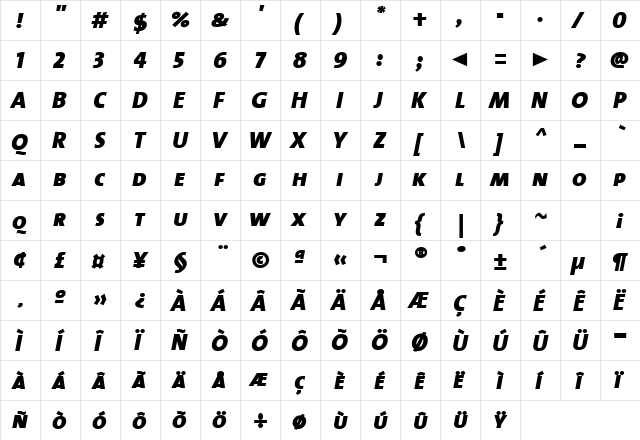
TheSansBlack-CapsItalic Regular
Design Context for TheSansBlack-CapsItalic Typeface
TheSansBlack-CapsItalic offers clean, dependable letterforms without strong stylistic allegiance, making it a practical choice for designers who need flexibility. The slanted form adds forward momentum and visual energy.
Pro Tip: Use TheSansBlack-CapsItalic for emphasis, pull quotes, and subheadings where its slanted energy can add rhythm to the layout.